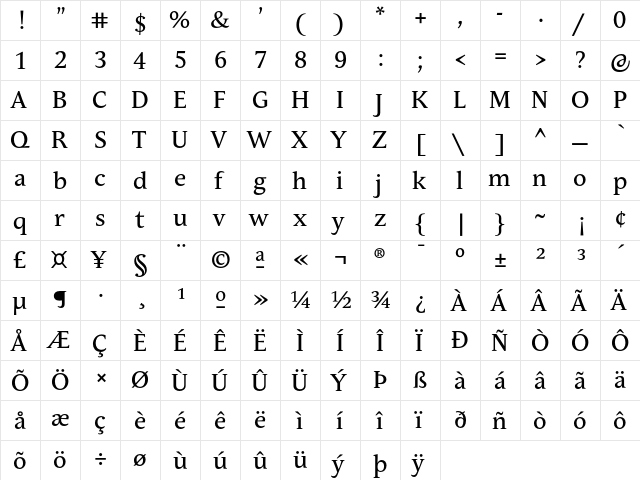
Andulka Text Pro Regular
Design Context for Andulka Text Pro Typeface
Andulka Text Pro takes a measured approach to typography — its balanced proportions and neutral character make it a reliable workhorse for both digital and print work.